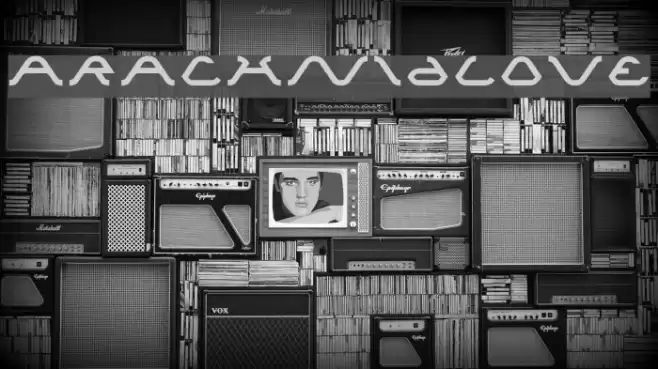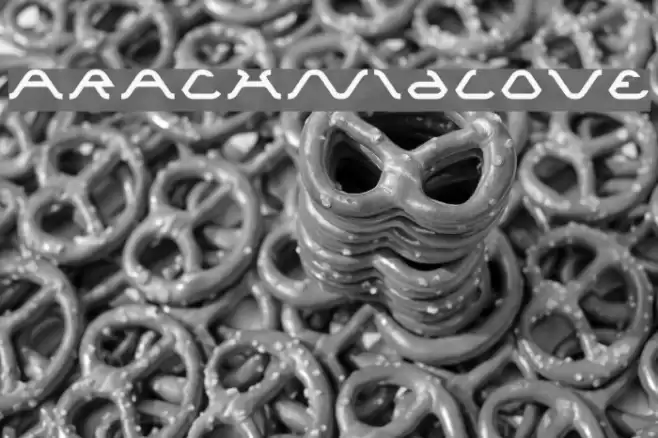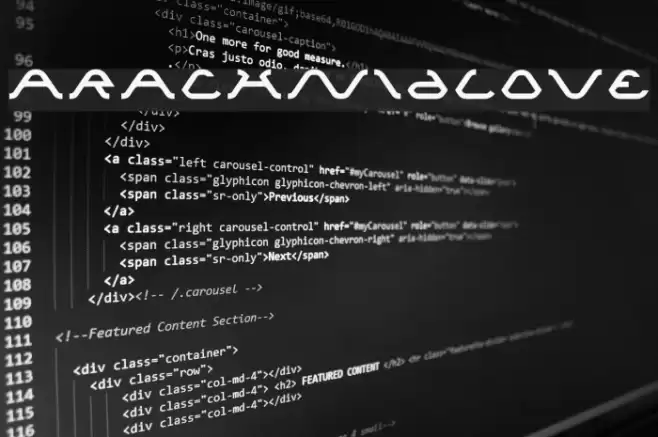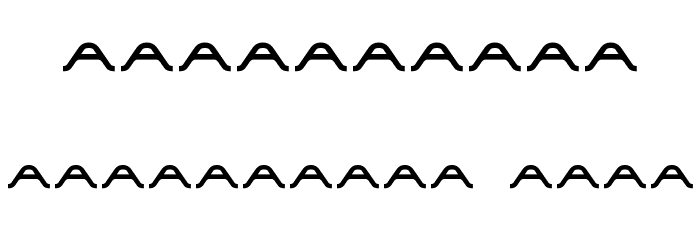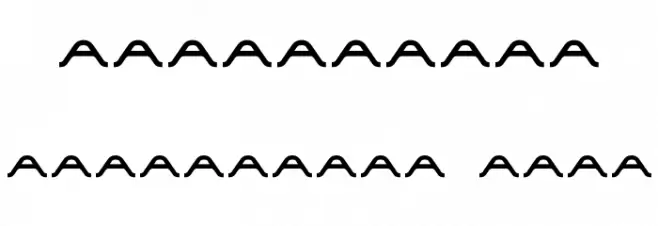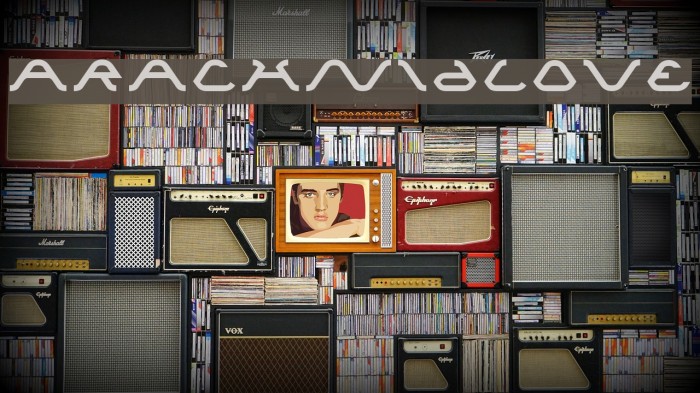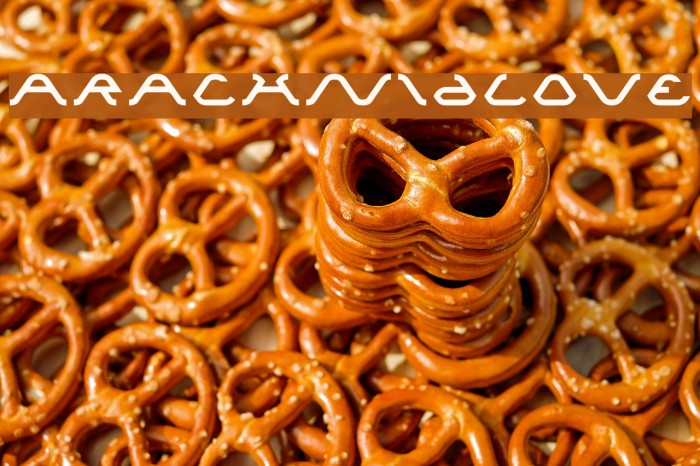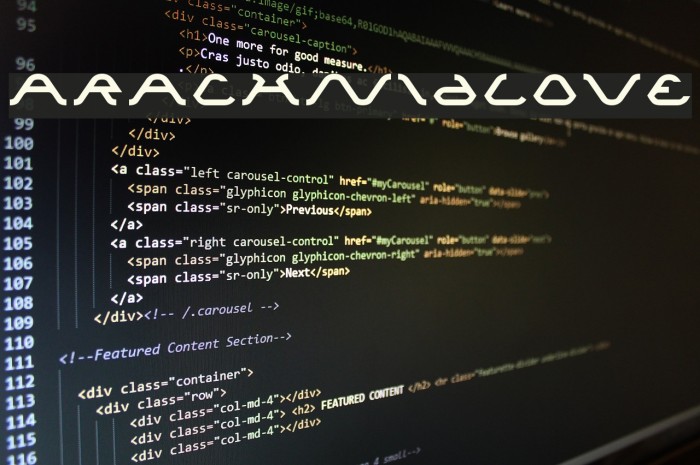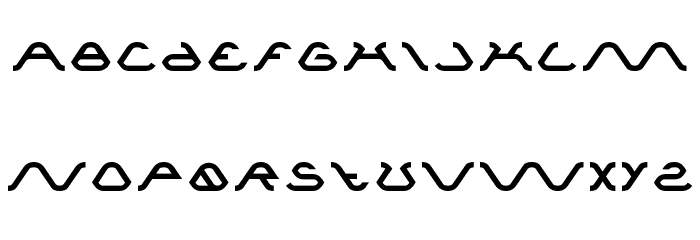
arachnidlove Font
arachnidlove Description
This font features a unique and futuristic design, characterized by angular and geometric shapes that create a sense of movement and modernity. Each character is crafted with a distinct style, incorporating sharp angles and smooth curves that give it a dynamic appearance. The font maintains a consistent line weight throughout, providing a cohesive and balanced look. Its unconventional style makes it stand out, offering a fresh take on traditional letterforms. The overall design is clean and minimalistic, yet it captures attention with its bold and innovative approach.
A futuristic and geometric font with angular, dynamic shapes.
- Proposed Projects: Ideal for sci-fi themed projects, modern branding, tech-related designs, and innovative product packaging.
- Overall Style: Futuristic